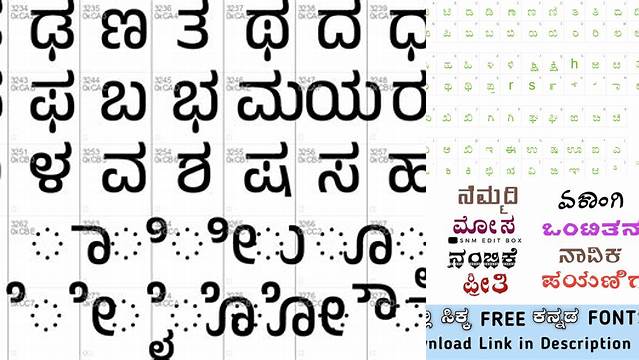
Kannada Unicode Fonts: Free Download Guide
Exploring the Richness of Kannada Unicode Fonts
Hey guys! Today, we're diving deep into the world of Kannada Unicode fonts and how you can get them for free. If you're a writer, a student, a designer, or just someone who loves the beauty of the Kannada script, having the right fonts is super important. These aren't just pretty typefaces; they are the building blocks for preserving and promoting the Kannada language in our increasingly digital world. Unicode is basically a universal standard that allows text to be displayed consistently across different devices and platforms. This means that a Kannada document you create on your computer will look the same on your friend's phone, or even on a website, regardless of their operating system or installed software. This standardization is a game-changer, ensuring that the beauty and integrity of the Kannada script are maintained. Before Unicode, using Kannada on computers could be a real headache. Different software used proprietary encoding systems, leading to garbled text and compatibility nightmares. You might have typed a beautiful sentence, only for it to appear as a jumble of symbols to someone else. That’s where Kannada Unicode fonts come in, solving this problem by providing a common language for digital text. The goal here is to make it easier for everyone to access, create, and share content in Kannada. This means more literature, more communication, and a stronger digital presence for the language.
Why Free Kannada Unicode Fonts Matter
So, why is the concept of free Kannada Unicode fonts so crucial? Well, accessibility is key, right? Making these fonts freely available democratizes the use of the Kannada language online and in print. It empowers individuals and communities who might not have the budget for commercial font licenses to still participate fully in digital communication and content creation. Think about students working on projects, bloggers sharing their thoughts, or local businesses creating marketing materials. Free fonts remove a significant financial barrier. Furthermore, the availability of high-quality, free Unicode fonts encourages greater adoption and usage of the Kannada script. When it's easy and cost-effective to type and display Kannada, more people are likely to do so. This directly contributes to the vibrancy and growth of the Kannada digital ecosystem. It's not just about aesthetics; it's about linguistic preservation and cultural promotion. By ensuring that the script is easily representable across all digital platforms, we are helping to keep the language alive and thriving for future generations. The broader impact is immense: increased literacy, easier access to educational resources in Kannada, and a stronger sense of cultural identity facilitated by digital means. This commitment to free resources fosters a more inclusive and dynamic environment for all Kannada speakers and enthusiasts.
Understanding Unicode: The Foundation of Kannada Fonts
Before we jump into downloading, let's quickly get a handle on what Unicode actually is, especially in the context of Kannada fonts. Think of Unicode as a universal translator for characters. Every letter, number, symbol, and even emoji in the world gets a unique code point. This standard ensures that when you type a Kannada letter, say 'ಕ' (ka), it's recognized and displayed correctly on any device or software that supports Unicode, regardless of the specific font installed. This is a massive improvement over older encoding systems that were often platform-specific and prone to compatibility issues. For Kannada, this means that the nuances and distinctiveness of its script are preserved in the digital realm. The structure of Kannada, with its complex conjunct consonants and vowel signs, is well-defined within the Unicode standard. This allows for accurate rendering and typing, preventing the kind of text corruption that used to plague digital Kannada. So, when we talk about Kannada Unicode fonts, we're referring to fonts that are designed to use these standard Unicode code points for Kannada characters. They are the bridge between the digital code and the beautiful visual representation of the script. Without this universal standard, sharing and viewing Kannada content online would still be a fragmented and frustrating experience. It's the backbone that enables seamless digital communication in Kannada.
Where to Find Free Kannada Unicode Fonts Online
Alright, let's get to the good stuff: where can you actually snag these awesome free Kannada Unicode fonts? There are several reputable sources online. One of the first places to check is the official Google Fonts library. Google has a fantastic collection of open-source fonts, and they include several high-quality Kannada options that are completely free to use for personal and commercial projects. Websites like Akshara Keertana and the Kannada Language Information Center often provide curated lists and direct download links to reliable fonts. You might also find valuable resources on platforms dedicated to Indic scripts, as they often host fonts developed by linguists and enthusiasts. Sometimes, government initiatives or university projects focused on language preservation offer downloadable fonts as part of their outreach. Always ensure you're downloading from trusted sources to avoid malware or improperly licensed fonts. Look for fonts that explicitly state they are Unicode compliant and released under open-source licenses like the SIL Open Font License (OFL). This ensures you have the legal right to use, modify, and distribute the fonts freely. Checking font foundries that specialize in Indian languages can also be fruitful, as many offer a selection of free fonts alongside their commercial offerings. Remember to read the licensing terms carefully, even for free fonts, to understand any usage restrictions.
Top Picks: Popular Free Kannada Unicode Fonts
So, you're looking for some standout free Kannada Unicode fonts to jazz up your projects? Let's talk about a few highly recommended ones that consistently deliver great results. First up, we have Noto Sans Kannada from Google Fonts. This font is part of Google's massive Noto project, which aims to support all languages. Noto Sans Kannada is known for its clean, modern look and excellent legibility, making it perfect for everything from body text to headlines. Its comprehensive character set ensures it can handle almost any Kannada word you throw at it. Another fantastic option is Lohit Kannada. This font is often pre-installed on many Linux distributions and is widely used in academic and governmental contexts. It's designed for clarity and readability, especially on screens. For those who appreciate a slightly more traditional feel, Gidugu is a great choice. While sometimes requiring a separate download, it offers a beautiful rendering of the Kannada script that feels both classic and contemporary. Keep an eye out for fonts developed by the Enduring Voices project or initiatives from universities like the University of Wisconsin-Madison, which often produce high-quality, freely available resources. When selecting, consider the intended use. Some fonts are better for display purposes (large text, headings), while others excel in long-form reading (books, articles). Always test a few different fonts to see which one best matches your aesthetic and functional requirements. The sheer variety available means you're bound to find something you love.
Using Kannada Unicode Fonts in Your Documents
Once you've downloaded and installed your shiny new Kannada Unicode fonts, the next step is actually using them in your documents. It’s super simple! Open up your favorite word processor or design software – think Microsoft Word, Google Docs, Adobe InDesign, or even a simple text editor. When you want to start typing in Kannada, you'll need to ensure your system's input method is set up correctly. This usually involves going into your operating system's language or keyboard settings and adding 'Kannada' as an input language. Once added, you can switch to the Kannada keyboard layout using a specific key combination (often Alt+Shift or Win+Space on Windows, Cmd+Space on Mac). Now, when you type, you'll be using the Kannada script. To apply your newly installed font, simply select the Kannada text you've typed (or will type) and then go to the font selection dropdown menu in your application. You should see the names of the Kannada Unicode fonts you installed listed there. Pick the one you want, and voilà ! Your text will transform. Remember, the beauty of Unicode is that these fonts should work seamlessly across different applications, provided they are properly installed and your system supports the Kannada script. Experiment with different fonts to find the one that best suits the tone and style of your document. Whether it's for academic writing, creative storytelling, or professional communication, having these fonts at your fingertips opens up a world of possibilities for expressing yourself in Kannada.
Even with the best free Kannada Unicode fonts, you might occasionally run into a snag. Don't sweat it, guys! Let's troubleshoot some common issues. If your Kannada text appears as boxes or strange symbols (known as 'mojibake'), it usually means one of two things: either the font you're using isn't a Unicode font, or the application or system you're using doesn't fully support that specific Unicode range for Kannada. Solution: Double-check that you downloaded and installed a font explicitly labeled as 'Unicode'. Try switching to a well-known Unicode font like Noto Sans Kannada. Ensure your operating system is up-to-date, as newer versions often have better Unicode support. Another issue might be inconsistent rendering – maybe some characters look fine, but others are wonky. Solution: This can sometimes happen with older or less comprehensive fonts. Again, try a robust font like Noto Sans Kannada or Lohit Kannada. Sometimes, the problem lies within the application itself. Solution: Try copying and pasting your Kannada text into a different application (like a plain text editor or a different word processor) to see if the issue persists. If it works elsewhere, the problem is likely with the original application's font handling. If a downloaded font simply doesn't appear in your application's font list after installation, Solution: Make sure you've restarted the application. Sometimes, a full system restart is needed. Also, verify that the font files were correctly placed during installation and that they are not corrupted. Checking the font file's properties can sometimes reveal issues. Remember, consistent and correct display is the primary benefit of Unicode, so persistent problems often point to a simple incompatibility or installation error that can usually be fixed with a bit of patience.
The Role of Open Source in Kannada Font Development
The growth and accessibility of free Kannada Unicode fonts owe a huge debt to the open-source movement. Open source means the source code (or in this case, the font design data) is freely available for anyone to use, modify, and distribute. This collaborative spirit is fantastic for languages like Kannada. Projects like Google's Noto Fonts are prime examples. They release their fonts under open-source licenses (like the SIL Open Font License - OFL), allowing developers and enthusiasts worldwide to contribute, improve, and ensure broader language support. This means that when you download a font like Noto Sans Kannada, you're benefiting from a global effort to make digital text inclusive. Open-source development also fosters innovation. Independent designers and linguists can take existing open-source Kannada fonts, refine them, add specific glyphs, or adapt them for particular uses, and then release their improved versions back into the open-source community. This creates a rich ecosystem where fonts are constantly evolving and becoming more refined. Furthermore, open-source fonts are crucial for maintaining the long-term availability of Kannada digital resources. Unlike proprietary fonts that can disappear if a company goes under or changes its licensing, open-source fonts are preserved by the community. This ensures that Kannada speakers will continue to have access to high-quality, free fonts for years to come, supporting the language's digital presence and cultural heritage. It's a powerful model for linguistic preservation in the digital age.
Enhancing Kannada Content Creation with Unicode Fonts